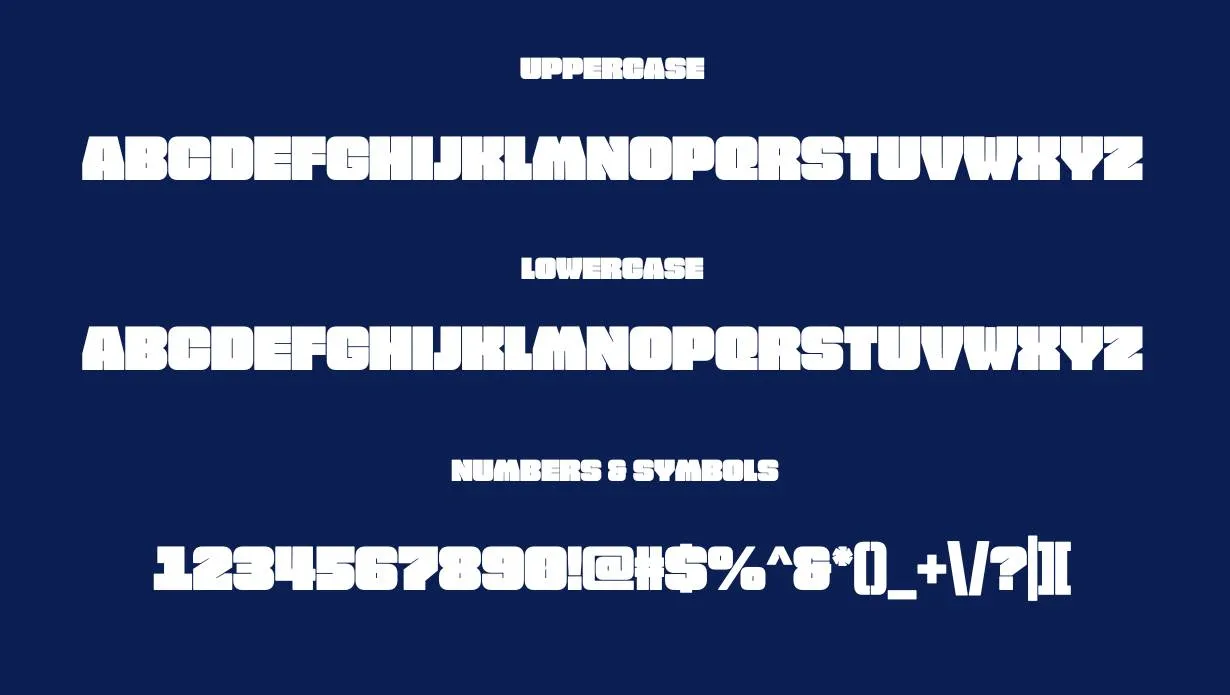
Free Fat Font is all about boldness and impact. This font is ideal for projects that need to make a statement and demand attention. Its heavy weight and slightly expanded width give your text a strong and commanding appearance, making it perfect for headlines, banners, or any design that requires a powerful aesthetic.
| Name | Free Fat Font |
| Designer | Thom Niessink |
Technically, Free Fat Font is crafted with precision, ensuring each letter carries a substantial weight. The design elements contribute to a bold and assertive visual language, making it a go-to choice for projects that want to communicate with strength and confidence.